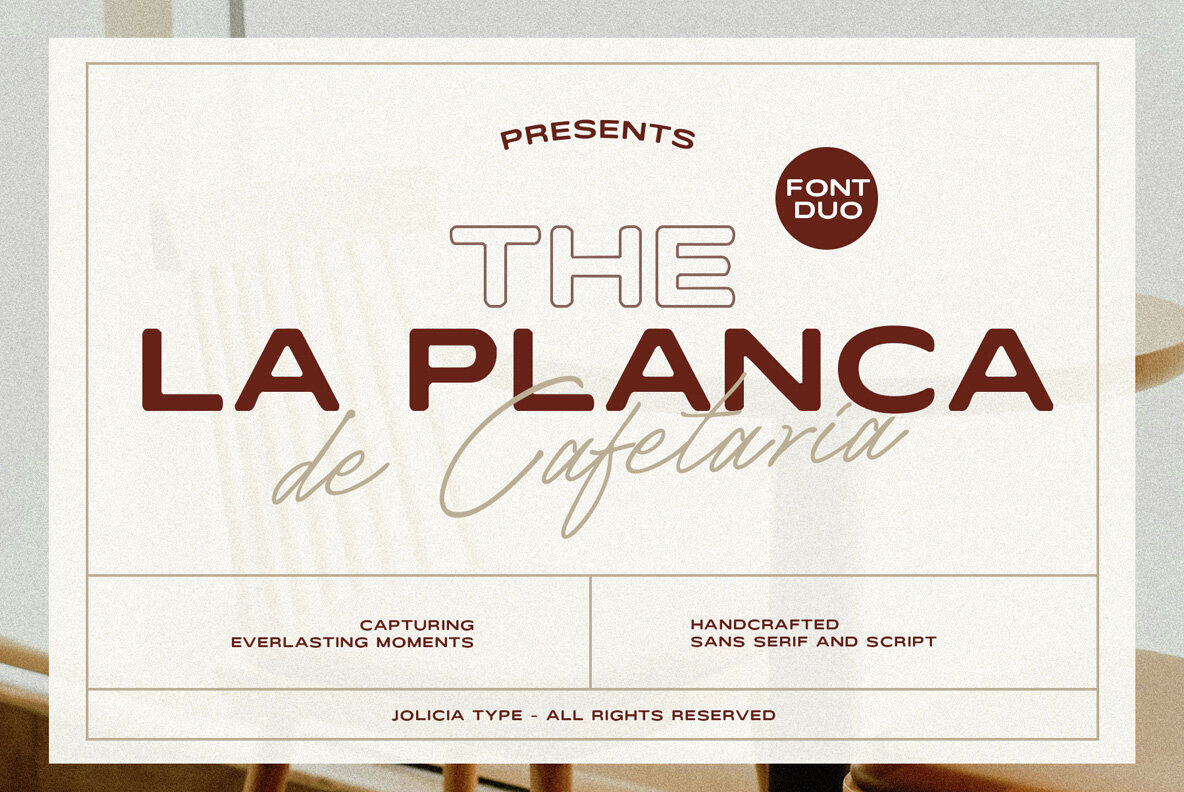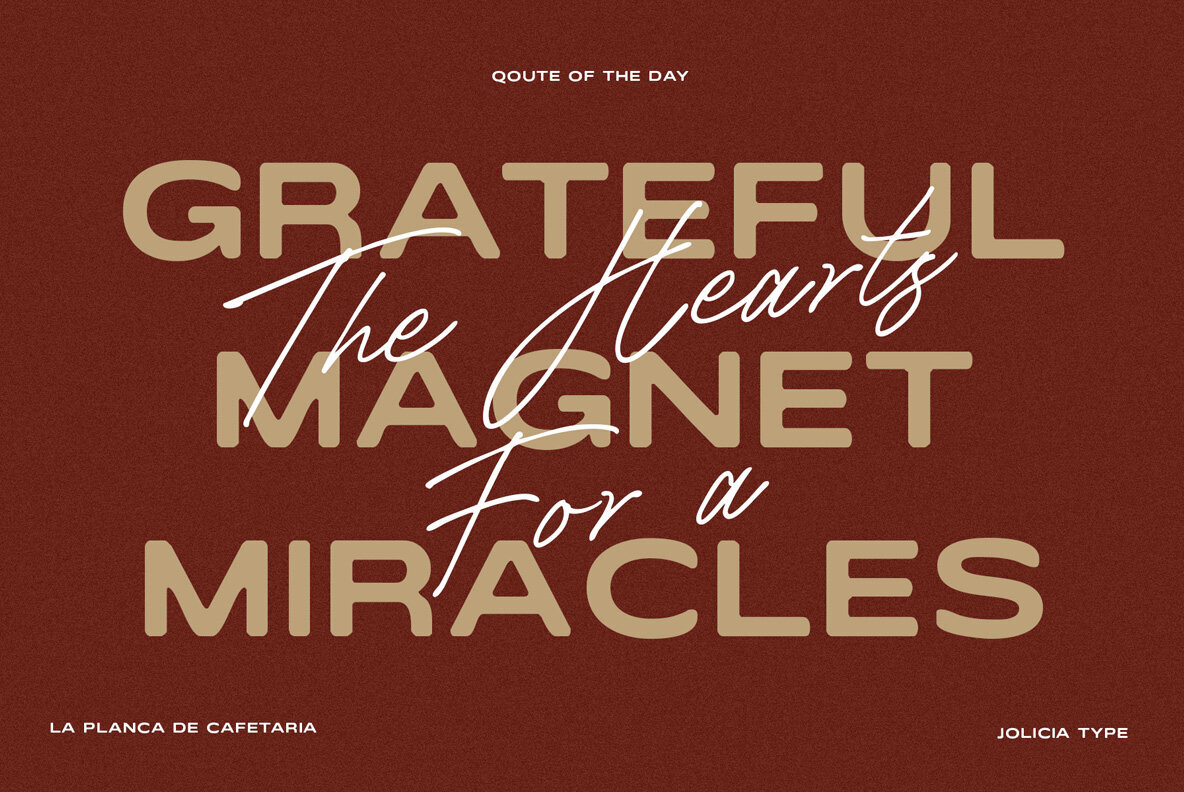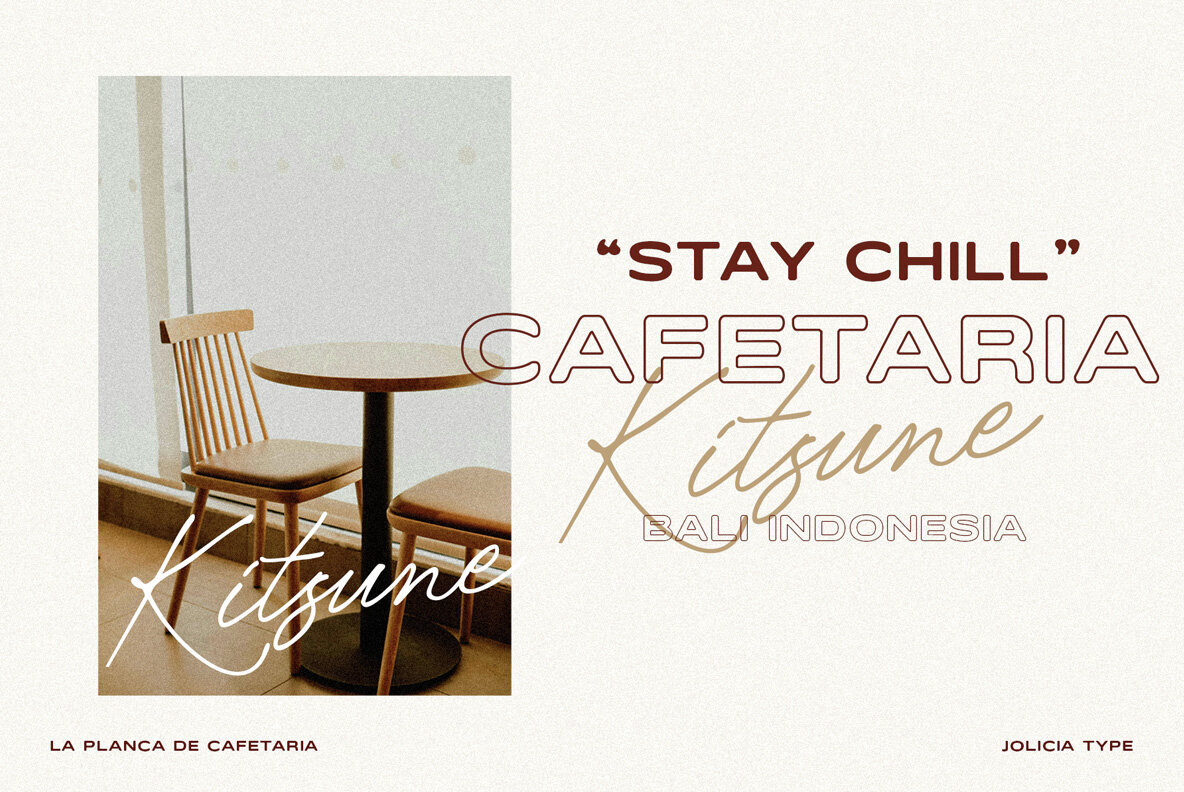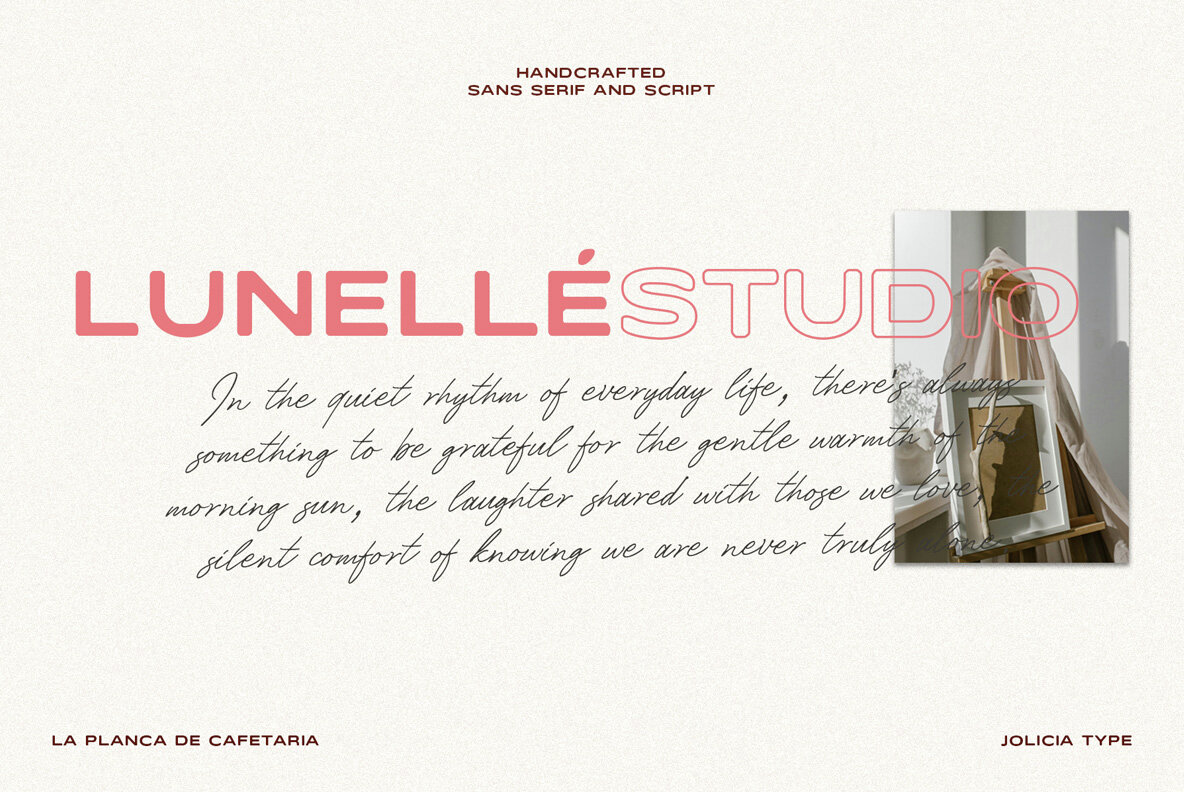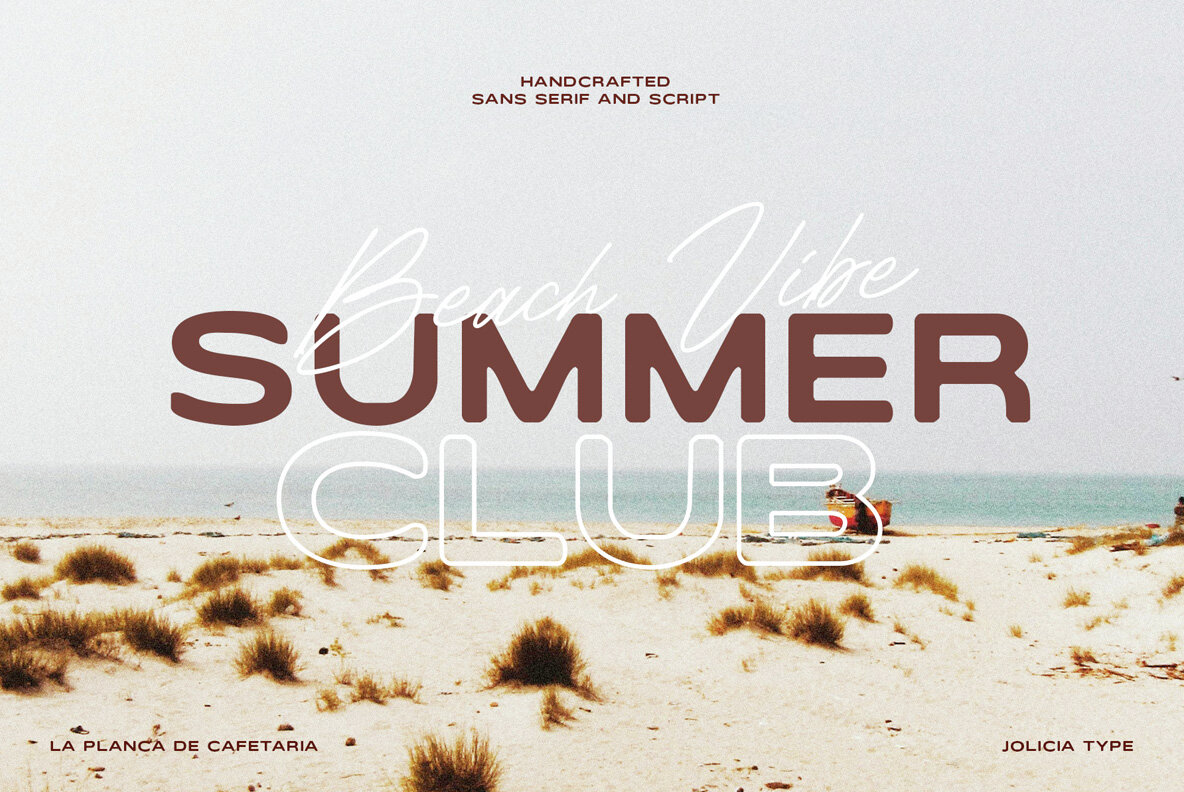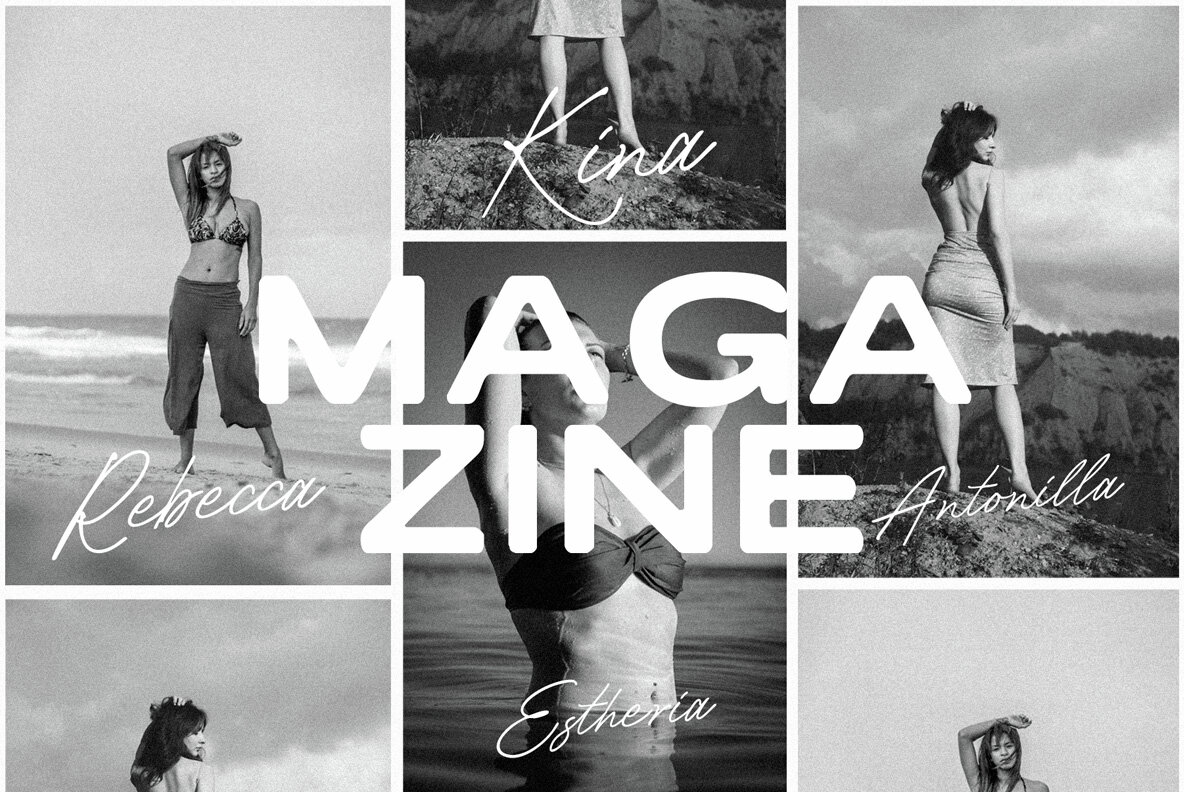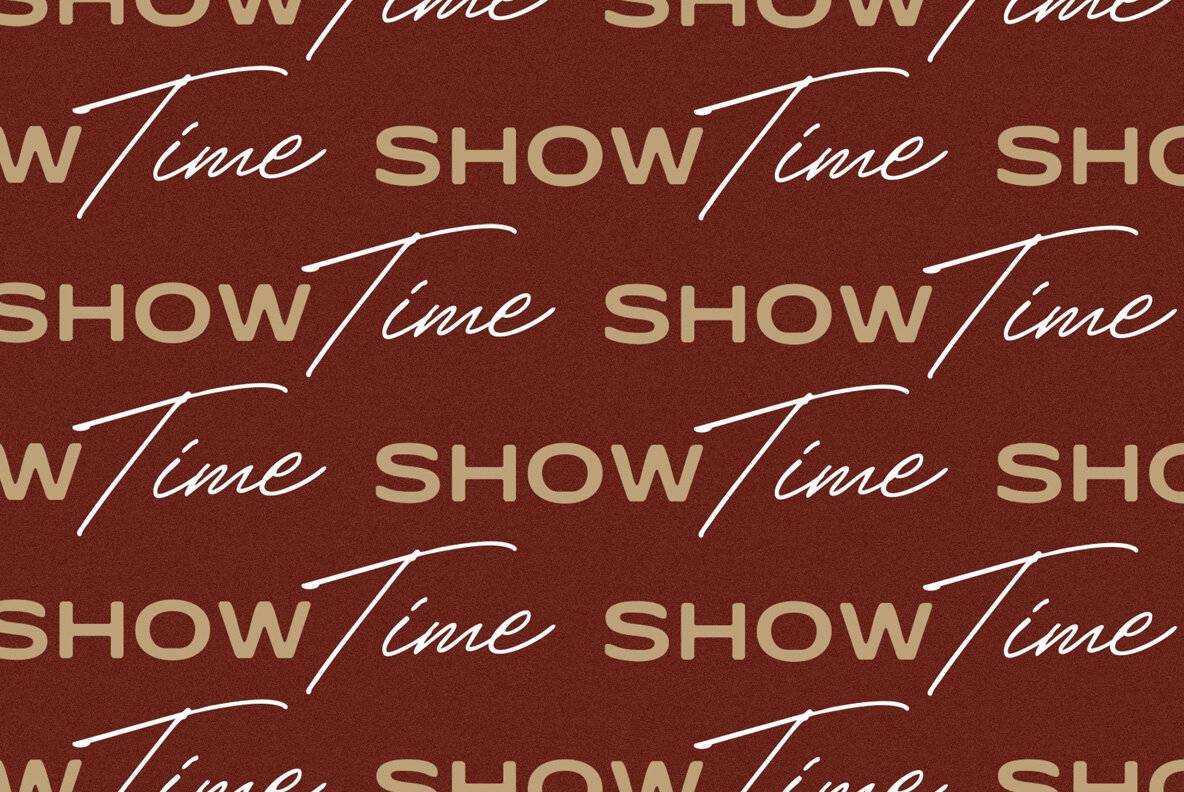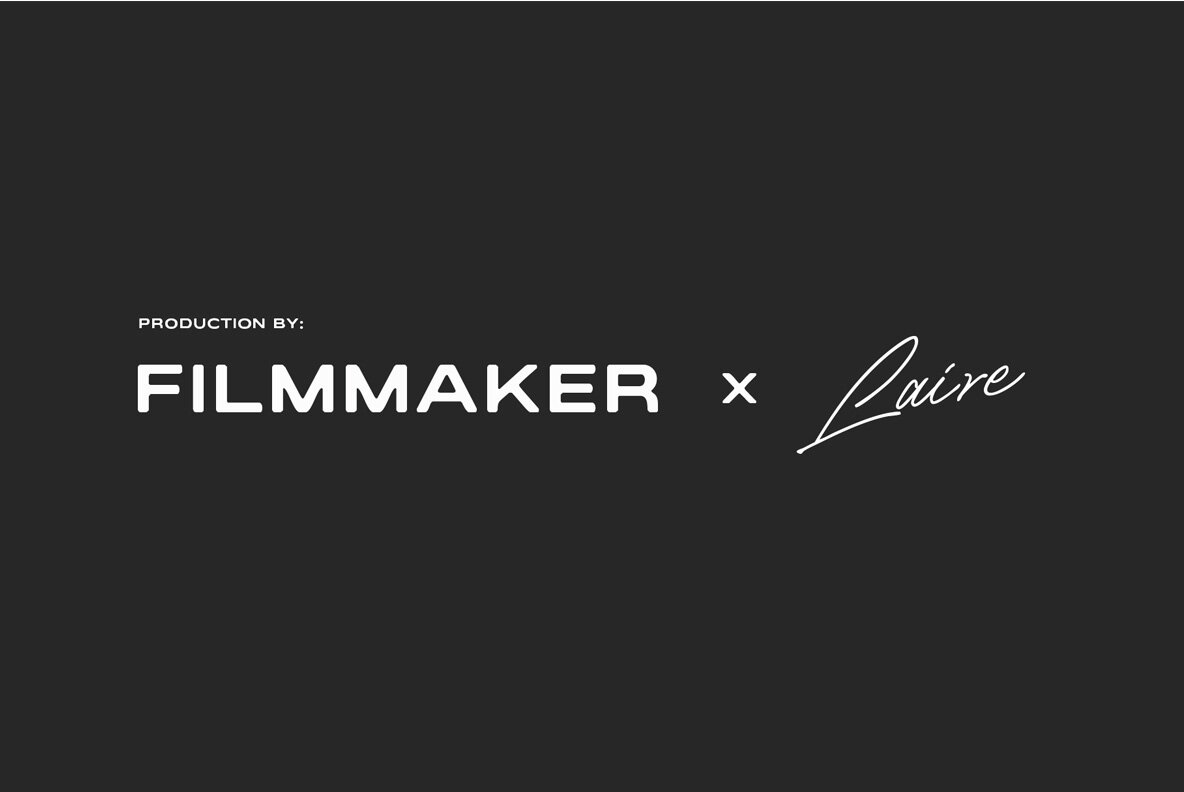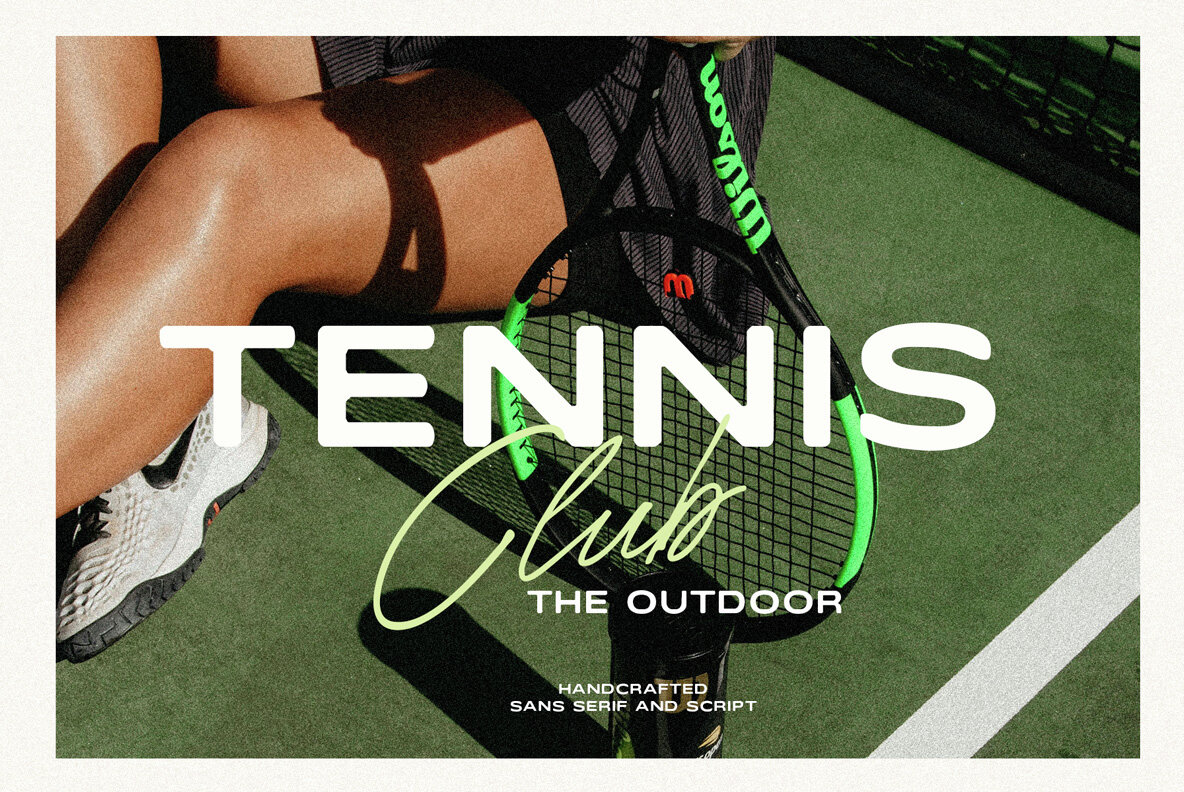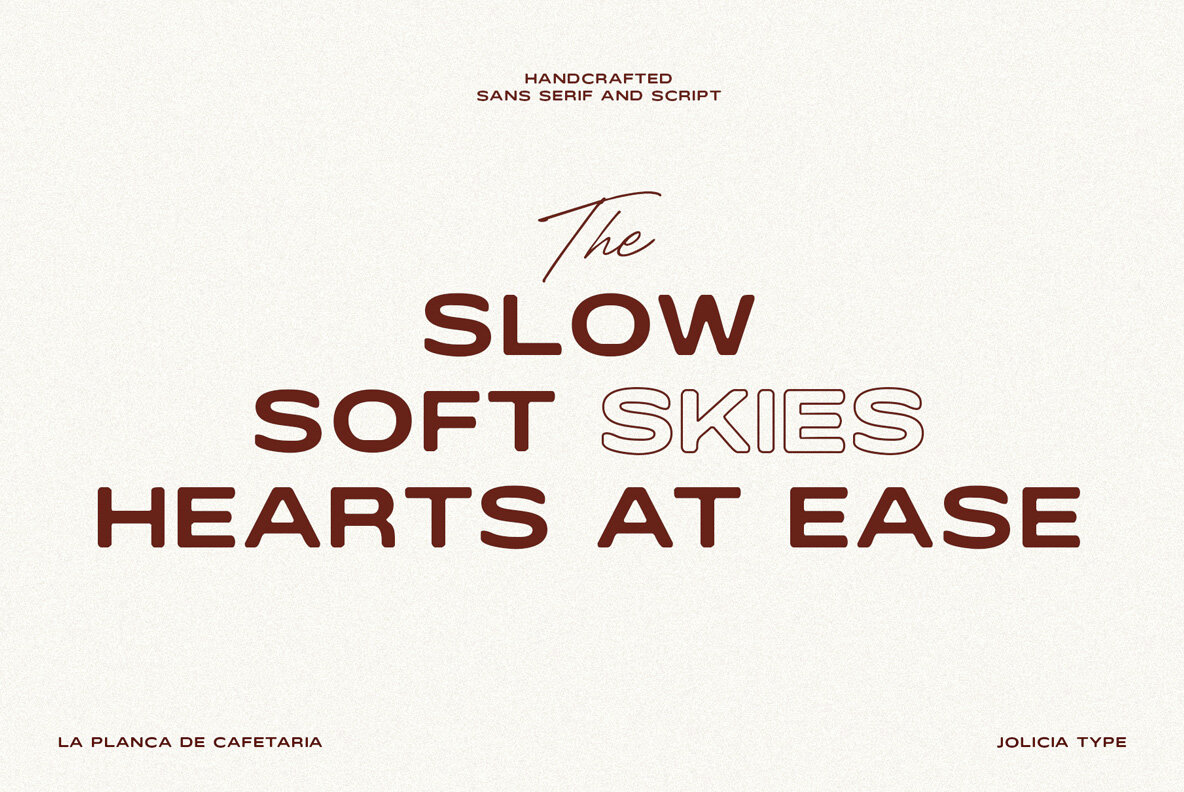
La Planca de Cafetaria Font
La Planca de Cafetaria Sans
La Planca de Cafetaria Outline
La Planca de Cafetaria Script
La Planca de Cafetaria is an exquisite font duo that marries the refined elegance of a sleek sans serif with the unique charm of a handwritten script. This duo offers a modern, clean, and timeless aesthetic, making it an excellent choice for creative endeavors that demand both sophistication and individuality. The interplay between the bold, assured sans serif and the delicate, flowing script enhances its versatility, making La Planca de Cafetaria suitable for diverse applications such as branding, logos, packaging design, wedding invitations, promotional posters, and chic social media content. Each character is meticulously designed with balanced proportions and intricate details, ensuring a polished and high-end feel.La Planca de Cafetaria: Dual-Style Elegance